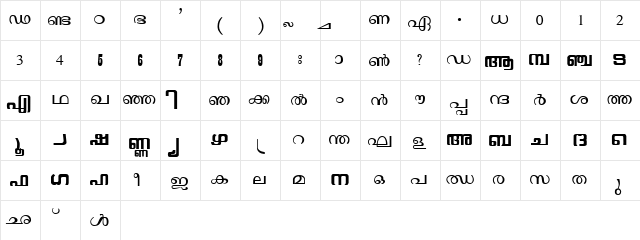
Malyalam Vijay Demo Regular
Design Context for Malyalam Vijay Demo Typeface
Malyalam Vijay Demo offers clean, dependable letterforms without strong stylistic allegiance, making it a practical choice for designers who need flexibility.